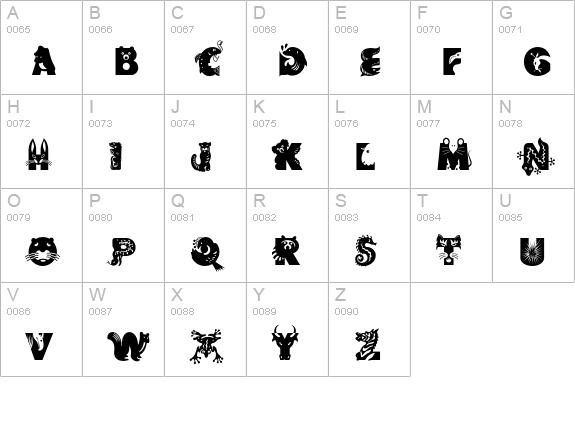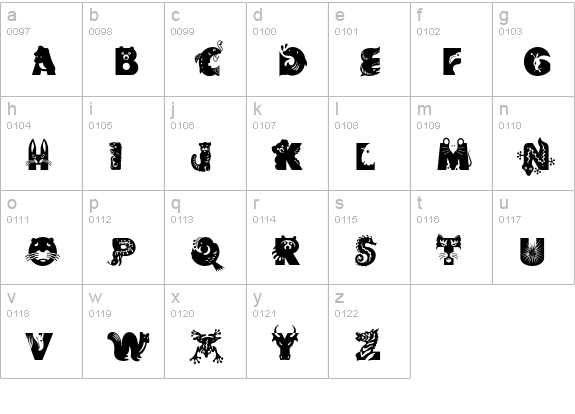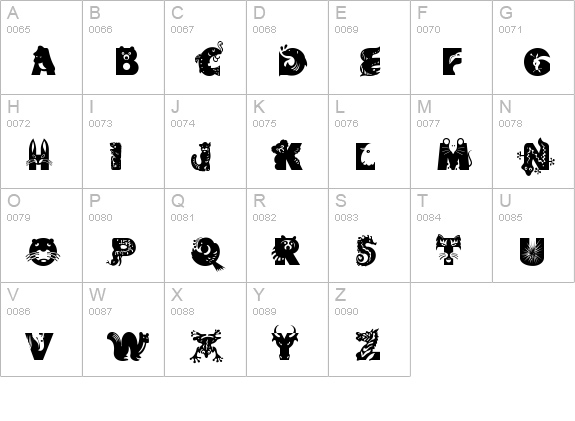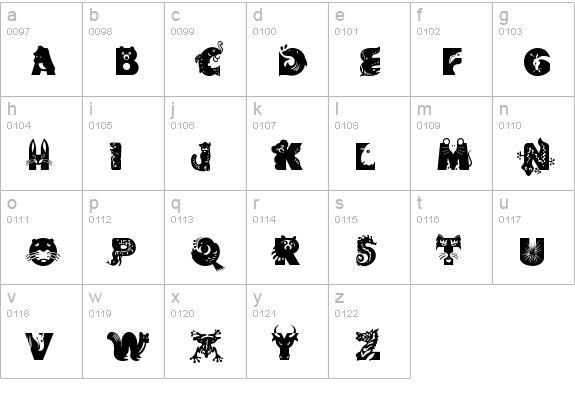
Critter font is a whimsical and playful typeface that brings a touch of charm to any design project. With its rounded edges and friendly appearance, Critter font is perfect for a variety of applications, from children's book covers to greeting cards. This font is sure to add a fun and lighthearted feel to your designs. Best of all, Critter font is available for free download at FontsMarket.com. This means you can easily access this delightful typeface and use it in your projects without any cost. Don't miss out on the opportunity to add a touch of whimsy to your designs with Critter font - download it for free today!